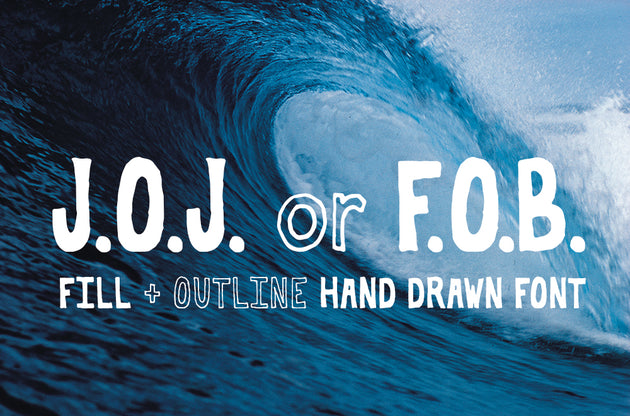
This font looks hand drawn because... it was hand drawn... outside of a computer.
J.O.J. or F.O.B. font is a hand drawn typeface available in Fill and Outline. This OTF font is a works great as a casual headline font or for text on hand drawn artwork and graphics.
J.O.J. or F.O.B. font is a vector OTF font that is infinitely scalable. It still possesses the nuance of a hand lettered font, while working just like any other font in your font library.